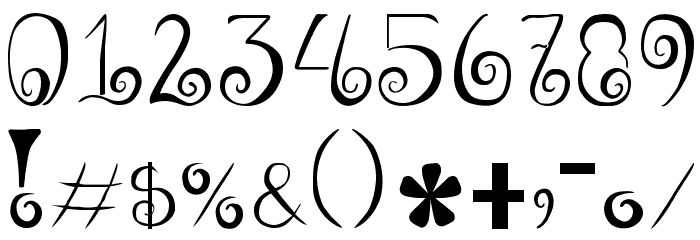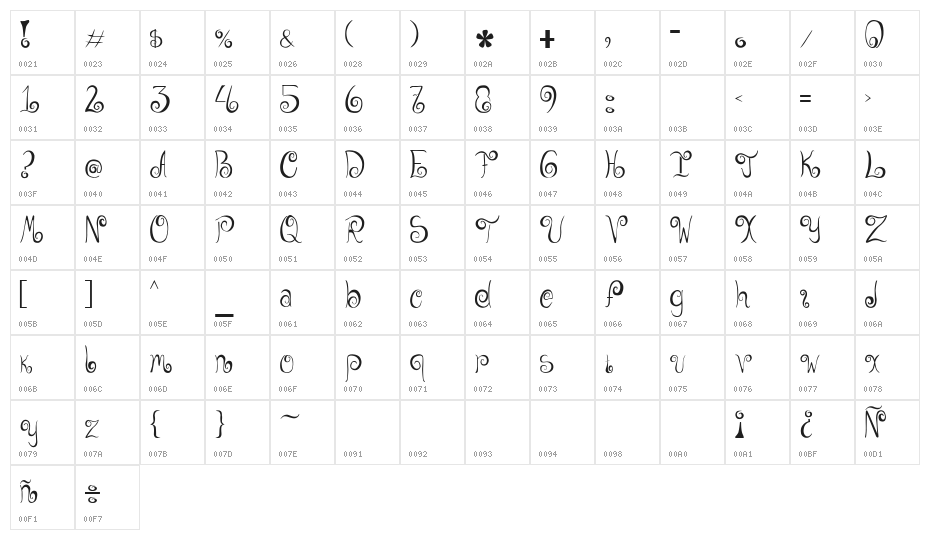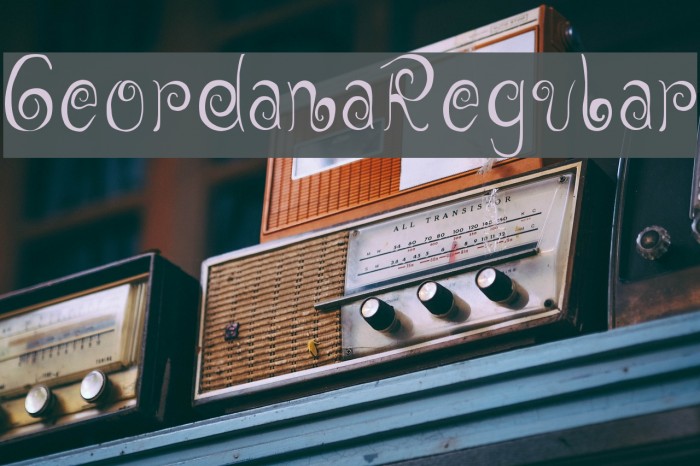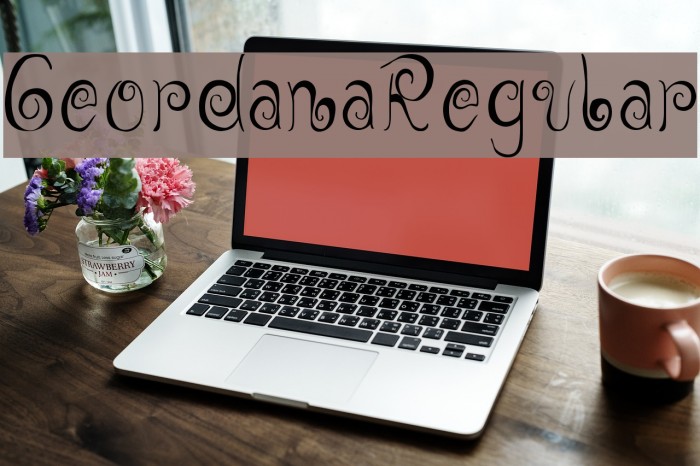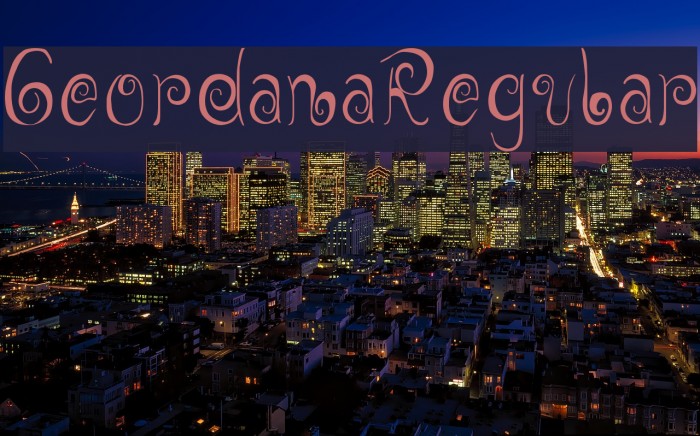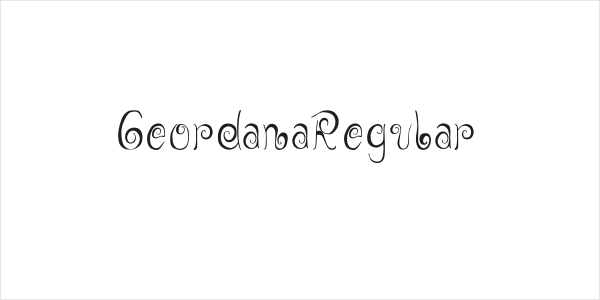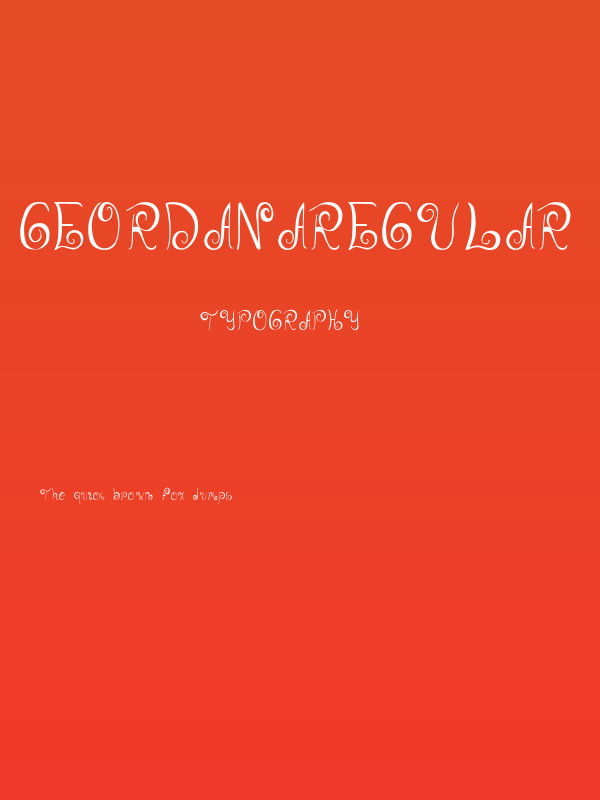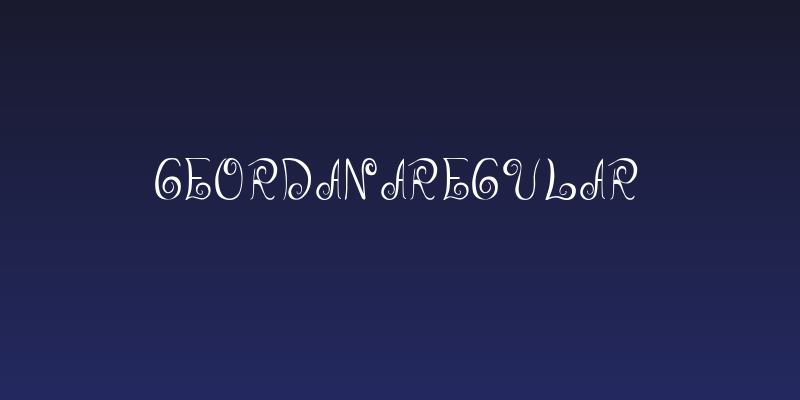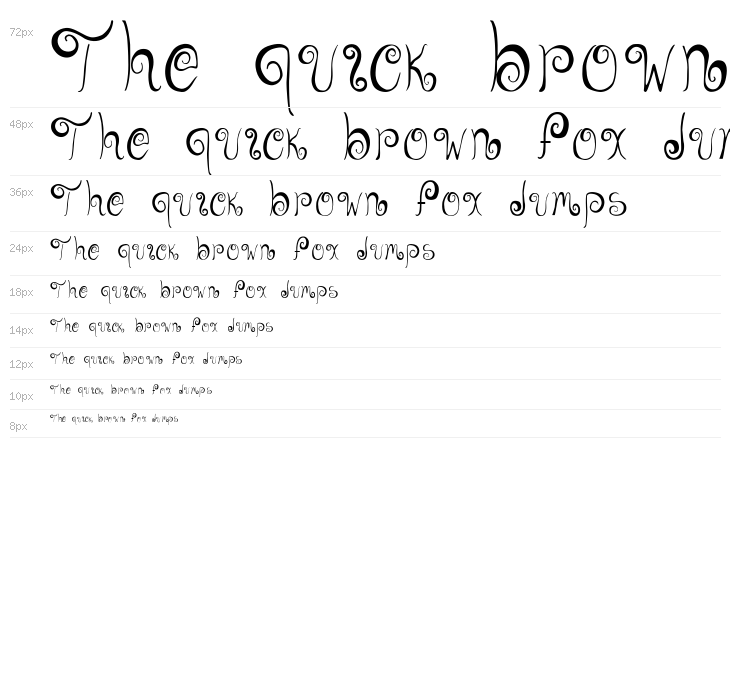
GeordanaRegular Font
GeordanaRegular Description
This font features a whimsical and decorative style, characterized by its playful and curly letterforms. Each character is adorned with unique swirls and loops, giving it a lively and artistic appearance. The uppercase letters are bold and expressive, while the lowercase letters maintain a consistent flow with their intricate details. Numbers and special characters follow the same ornamental theme, making the font suitable for creative and eye-catching designs. The overall look is both fun and elegant, perfect for projects that require a touch of personality and flair.
| Proposed Projects | Ideal for greeting cards, invitations, children's books, and playful branding. |